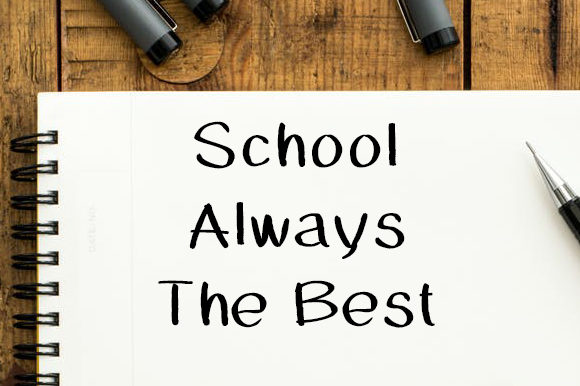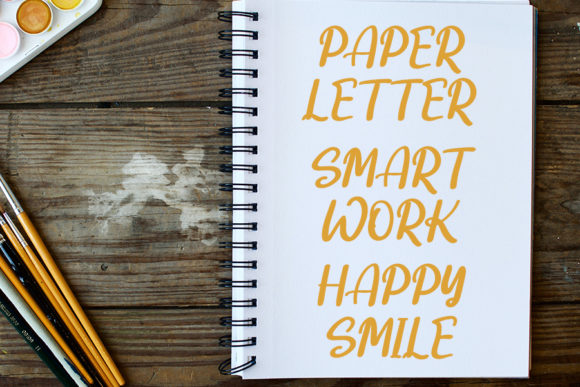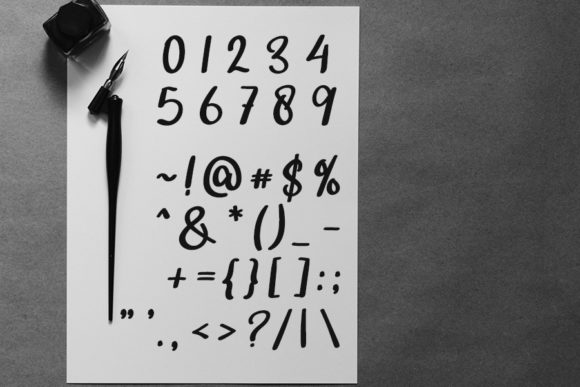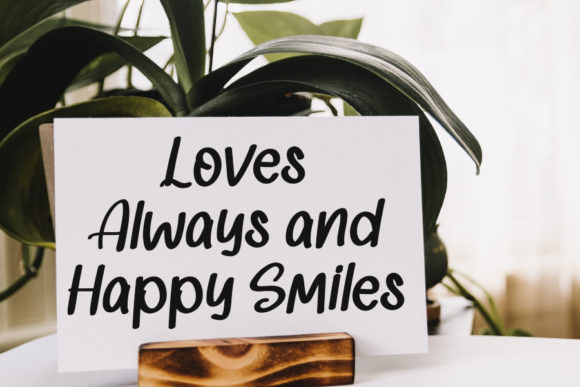
About Winter Snow White Font
Winter Snow White is a sweet and cursive paint brushed handwritten font. Dainty and joyful, this font will be ideal for writing wedding invitations, cards or any other design that may need a romantic, personalized touch!